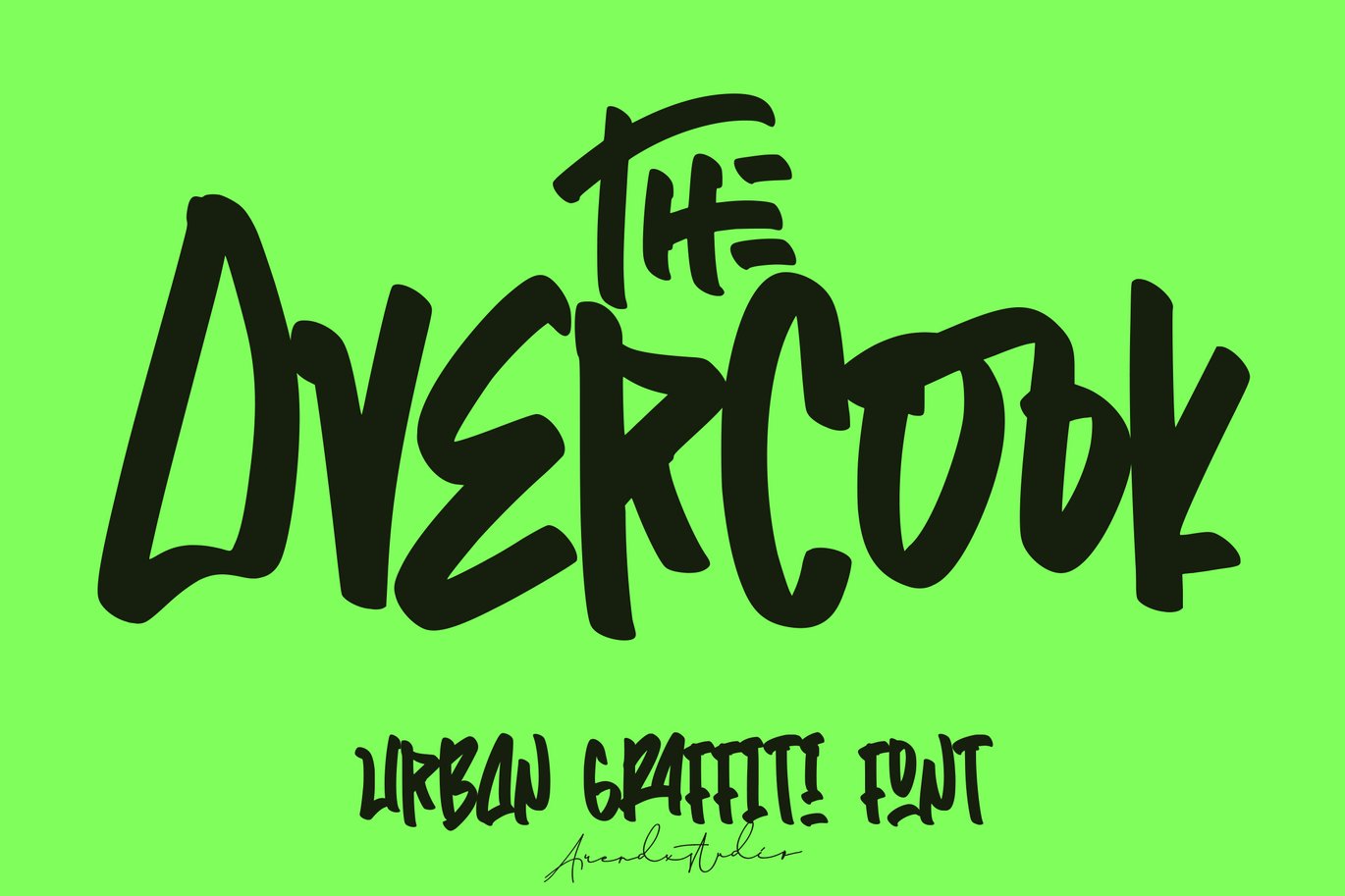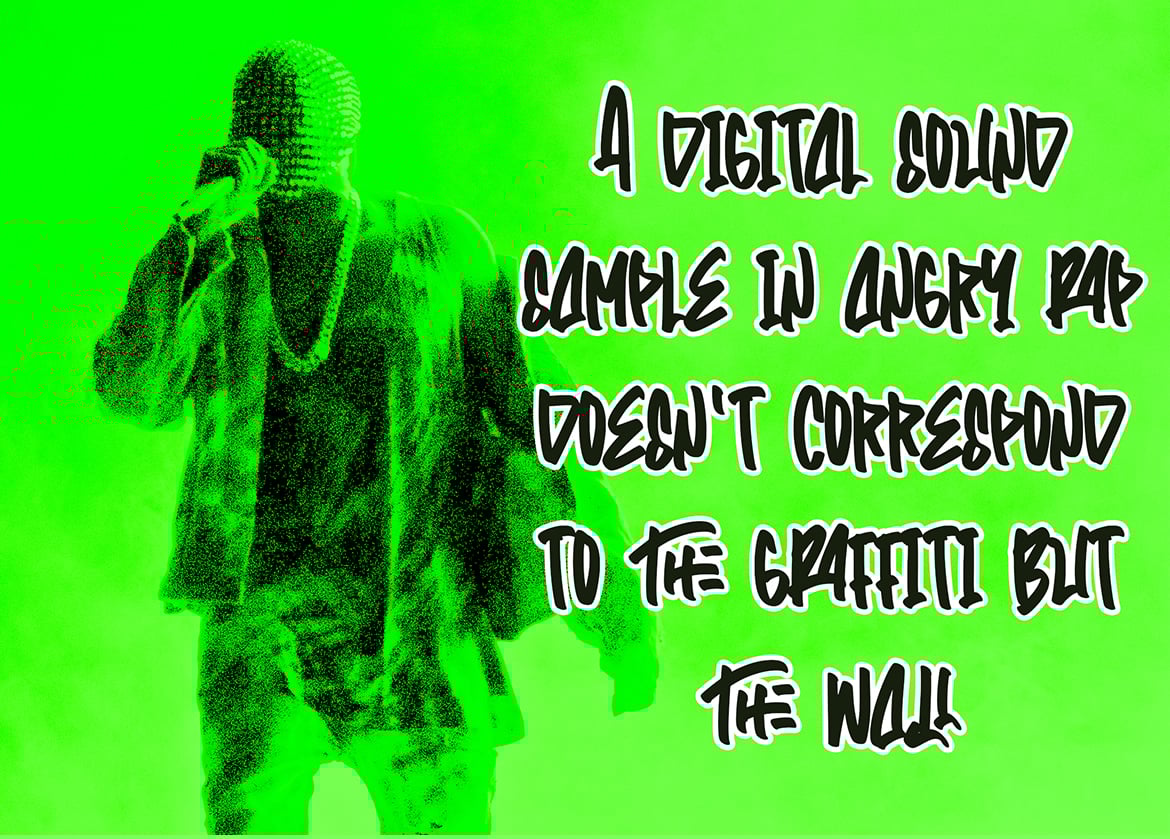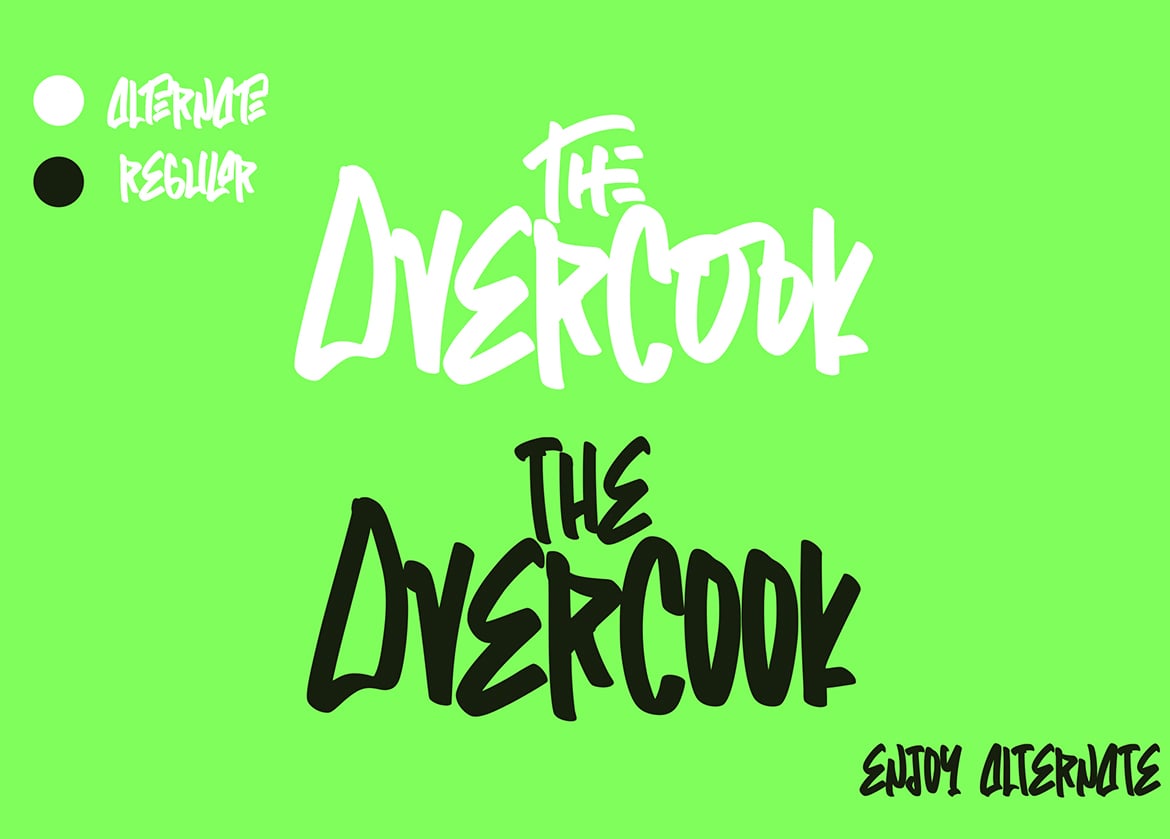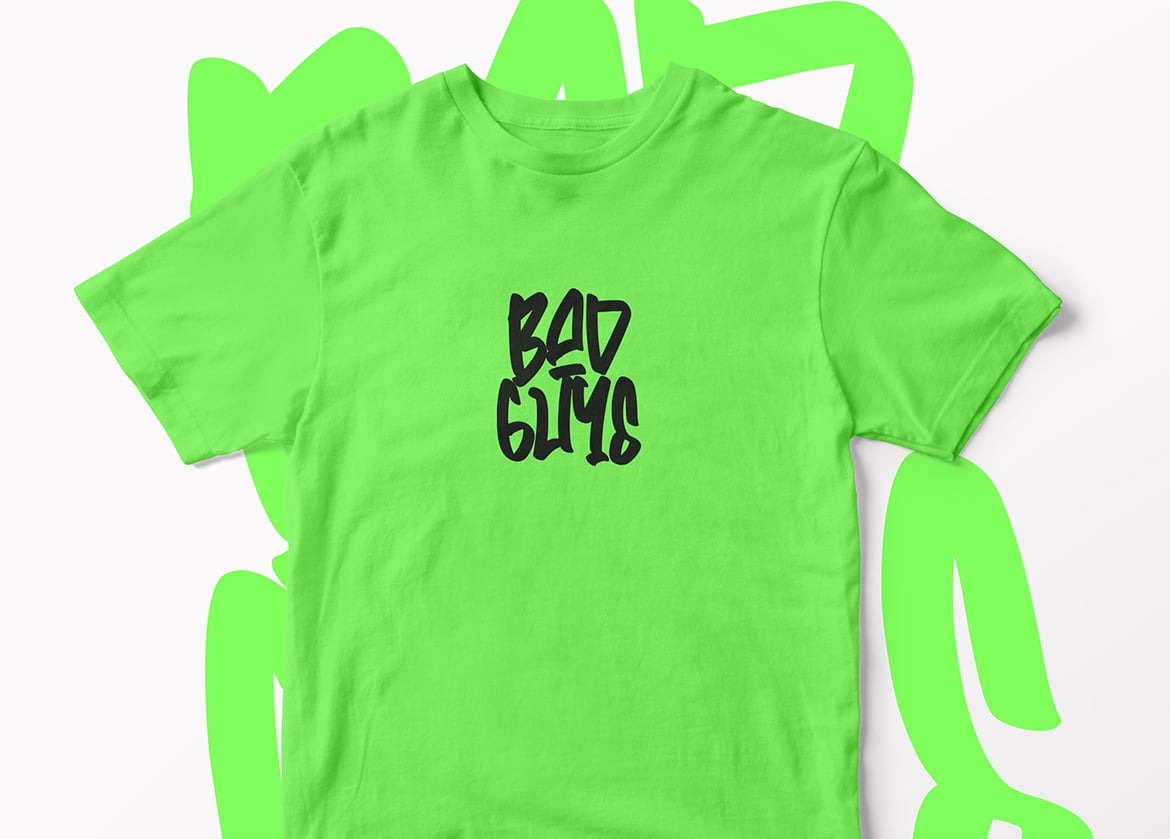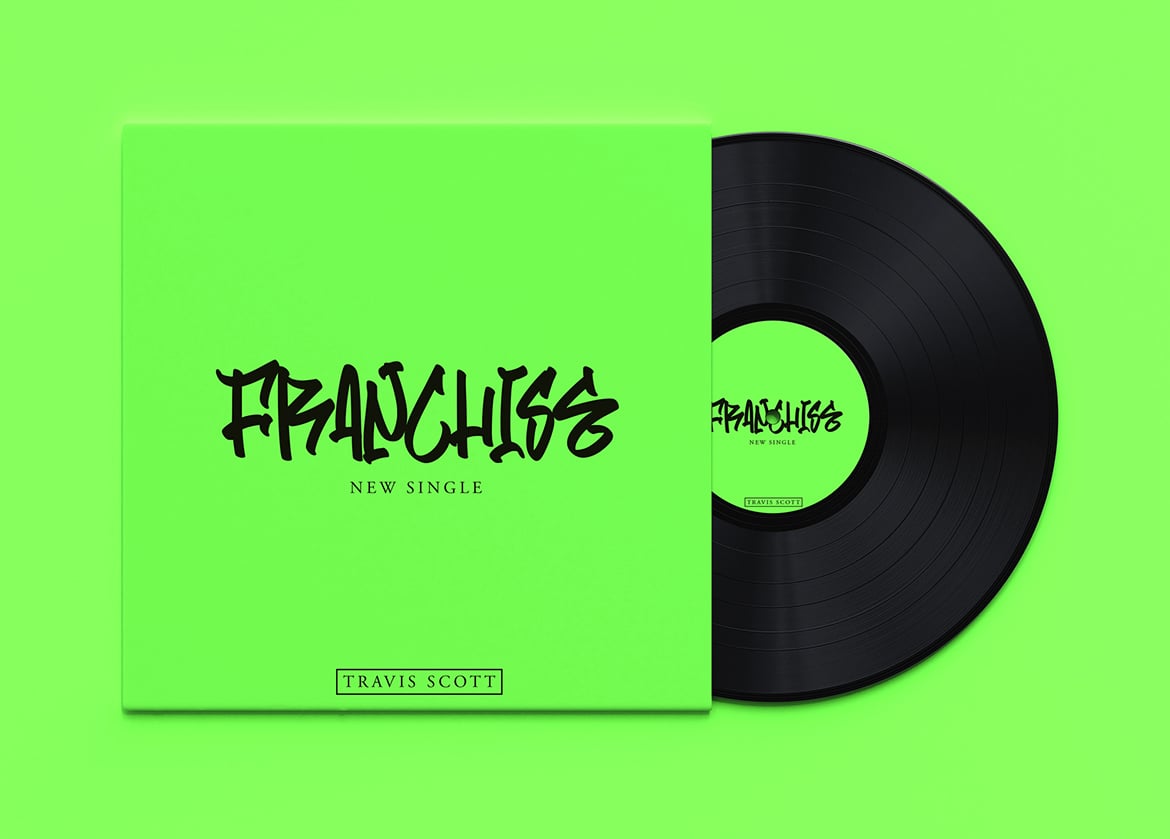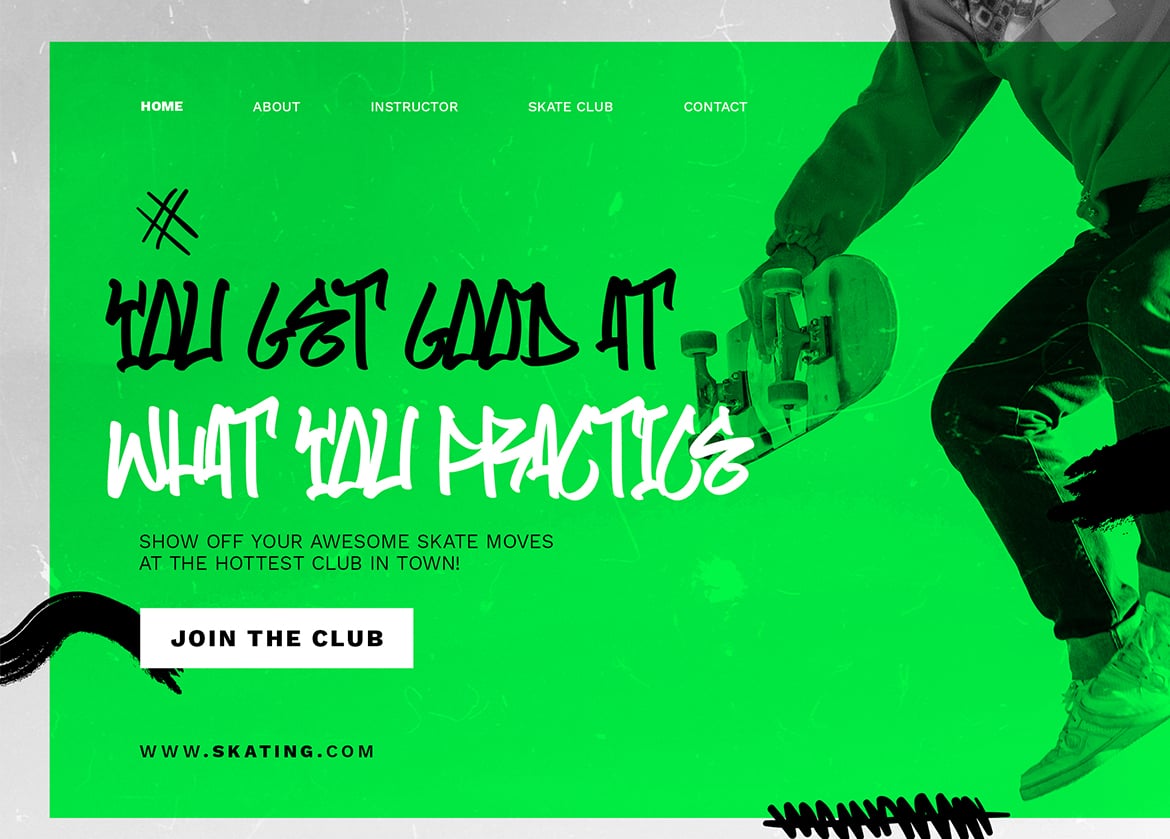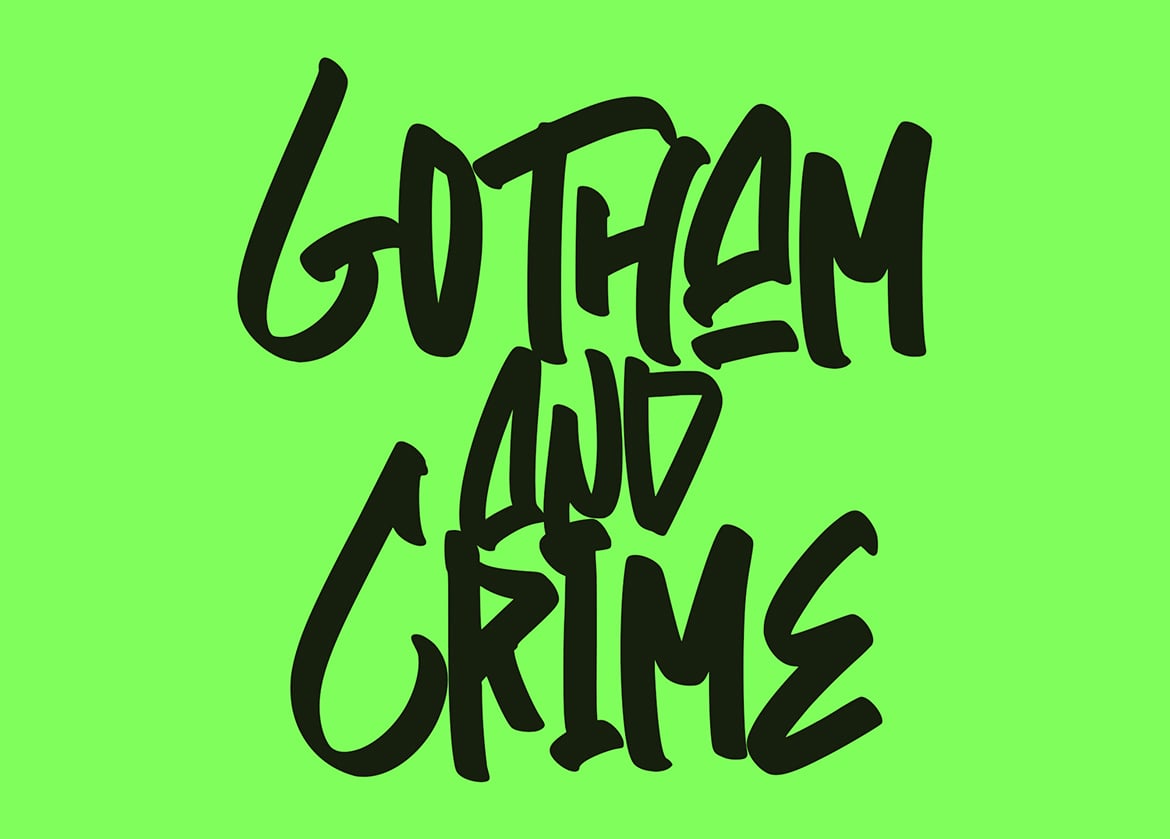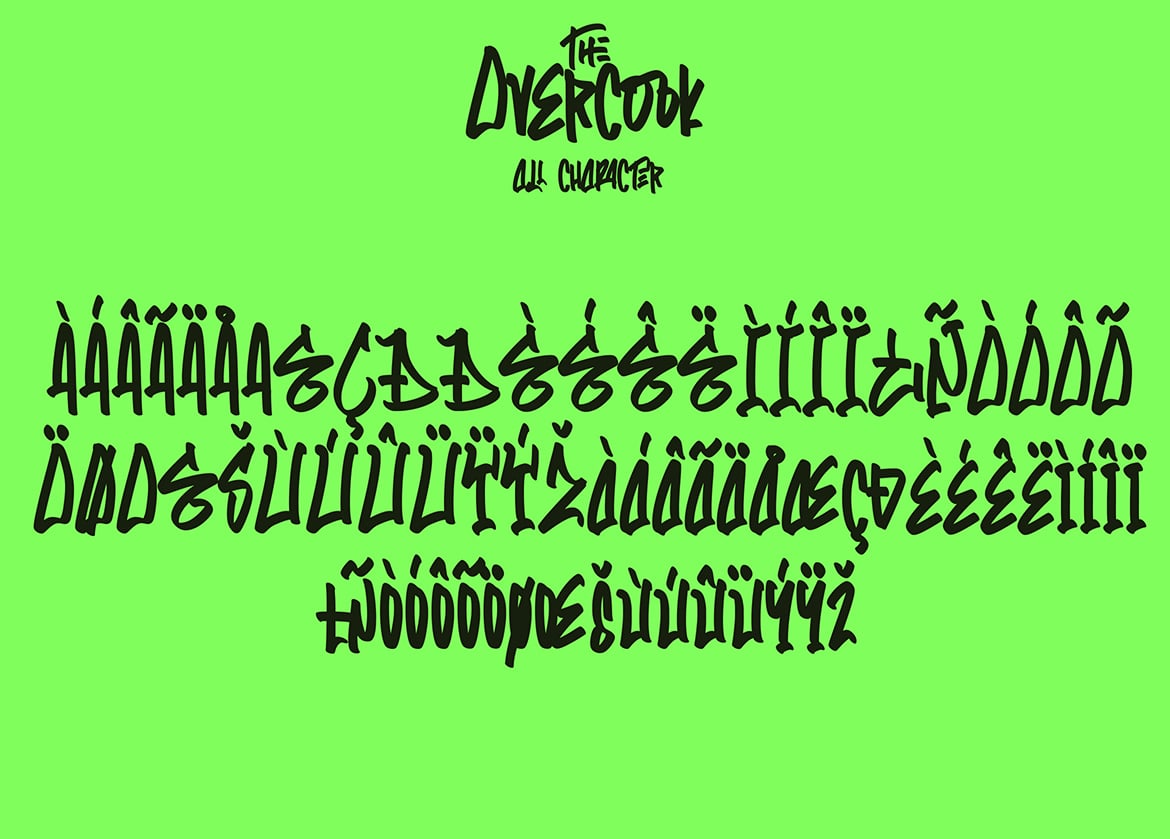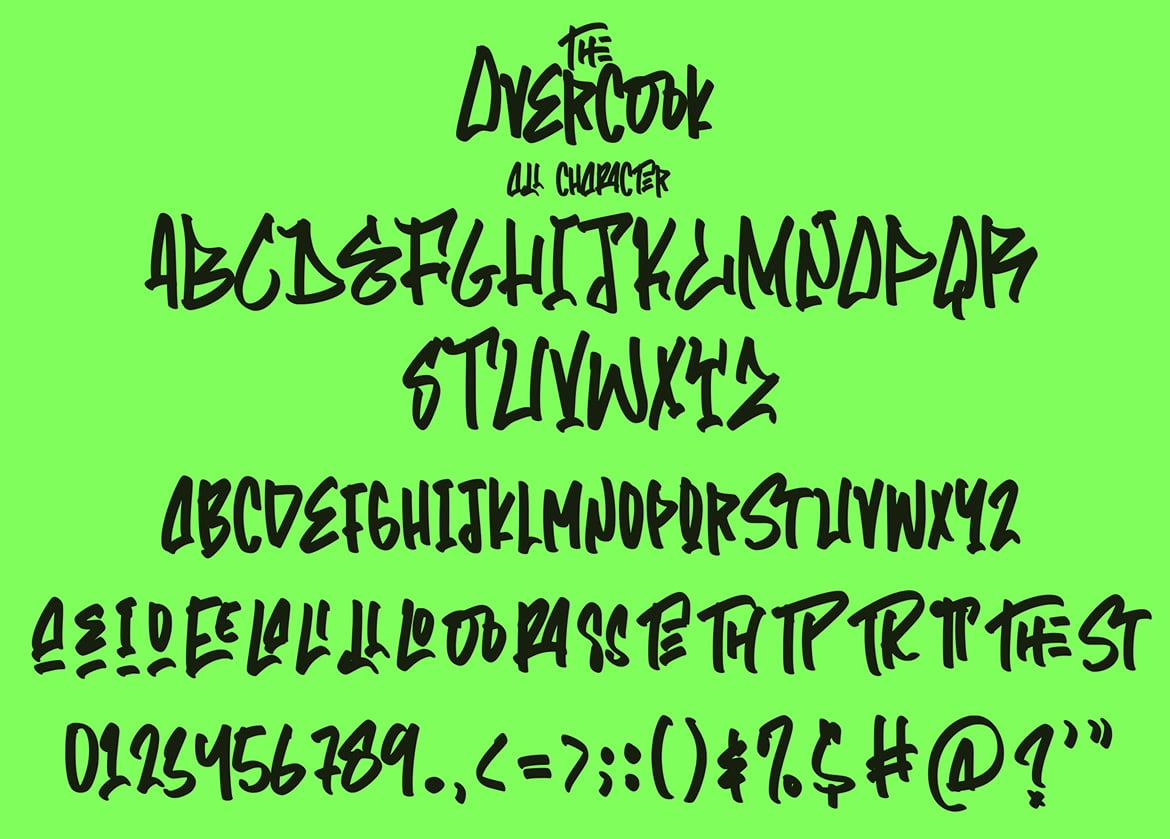
The Overcook – Graffiti Font
The Overcook is a free style font that has the characteristics of street art that shows freedom and is filled with unique characters
Features : • Character Set A-Z • Numerals & Punctuations (OpenType Standard) • Accents (Multilingual characters) • Ligature • Alternate